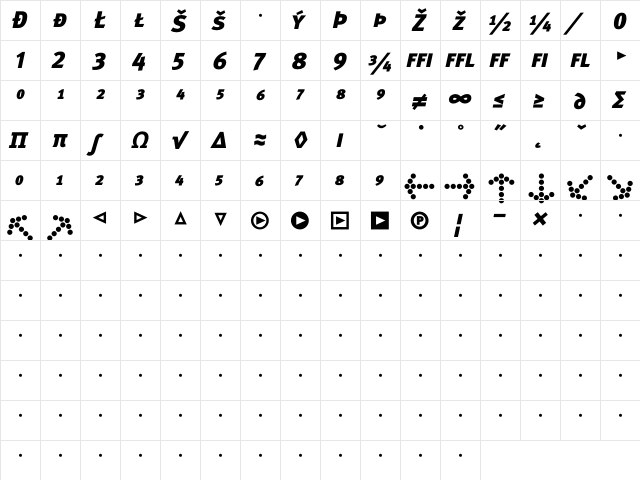
Meta Black Caps Exp Italic Font Preview
Meta Black Caps Exp Italic
Design Context for Meta Typeface
Meta takes a measured approach to typography — its balanced proportions and neutral character make it a reliable workhorse for both digital and print work. The dynamic lean of this cut emphasises speed and emphasis in any layout.
Pro Tip: Use Meta for emphasis, pull quotes, and subheadings where its slanted energy can add rhythm to the layout.